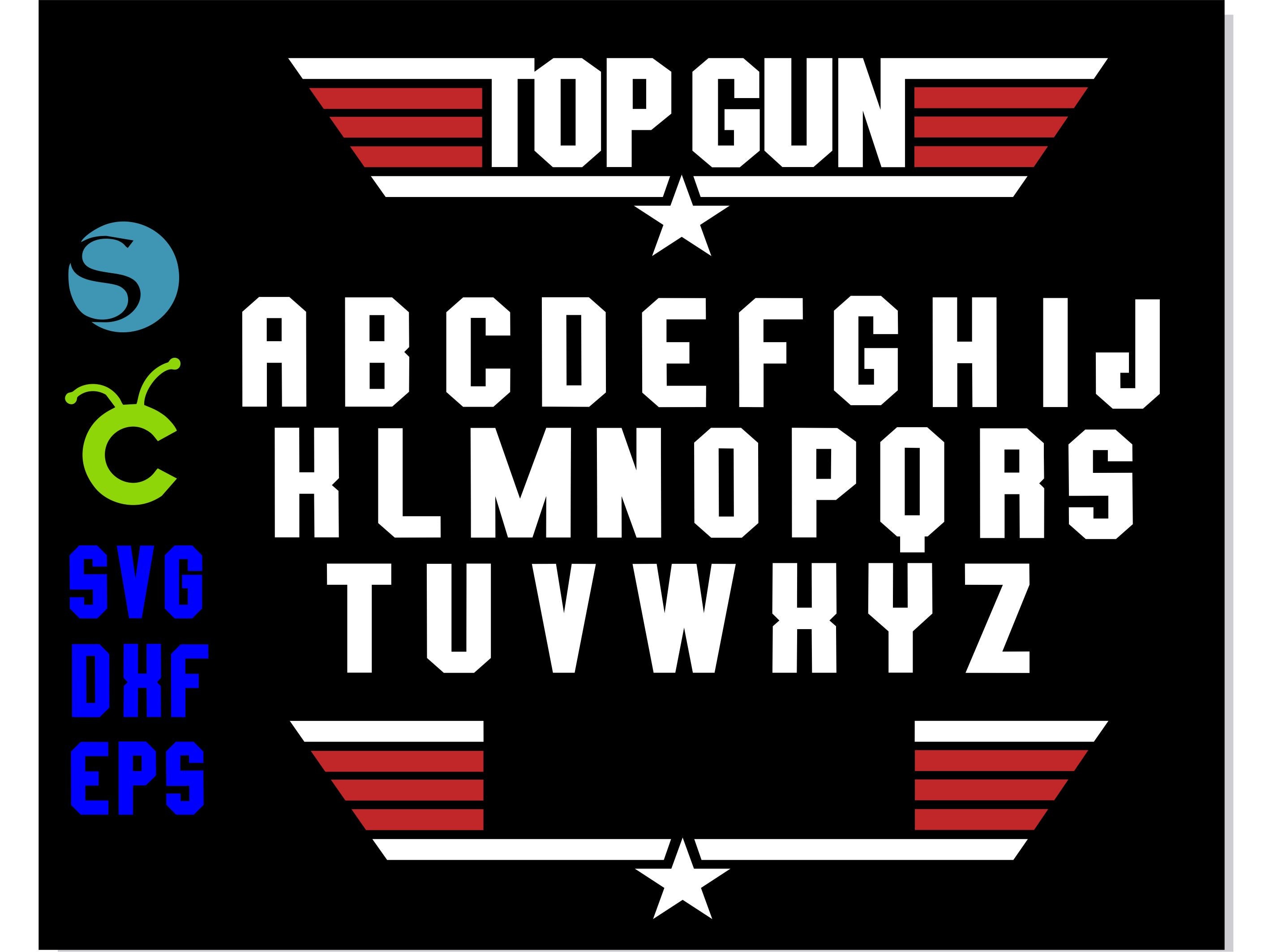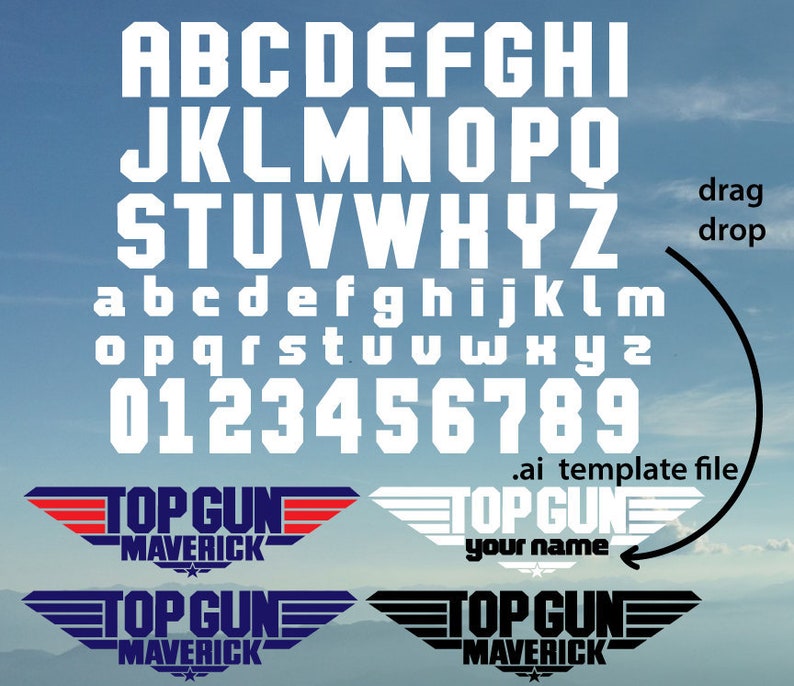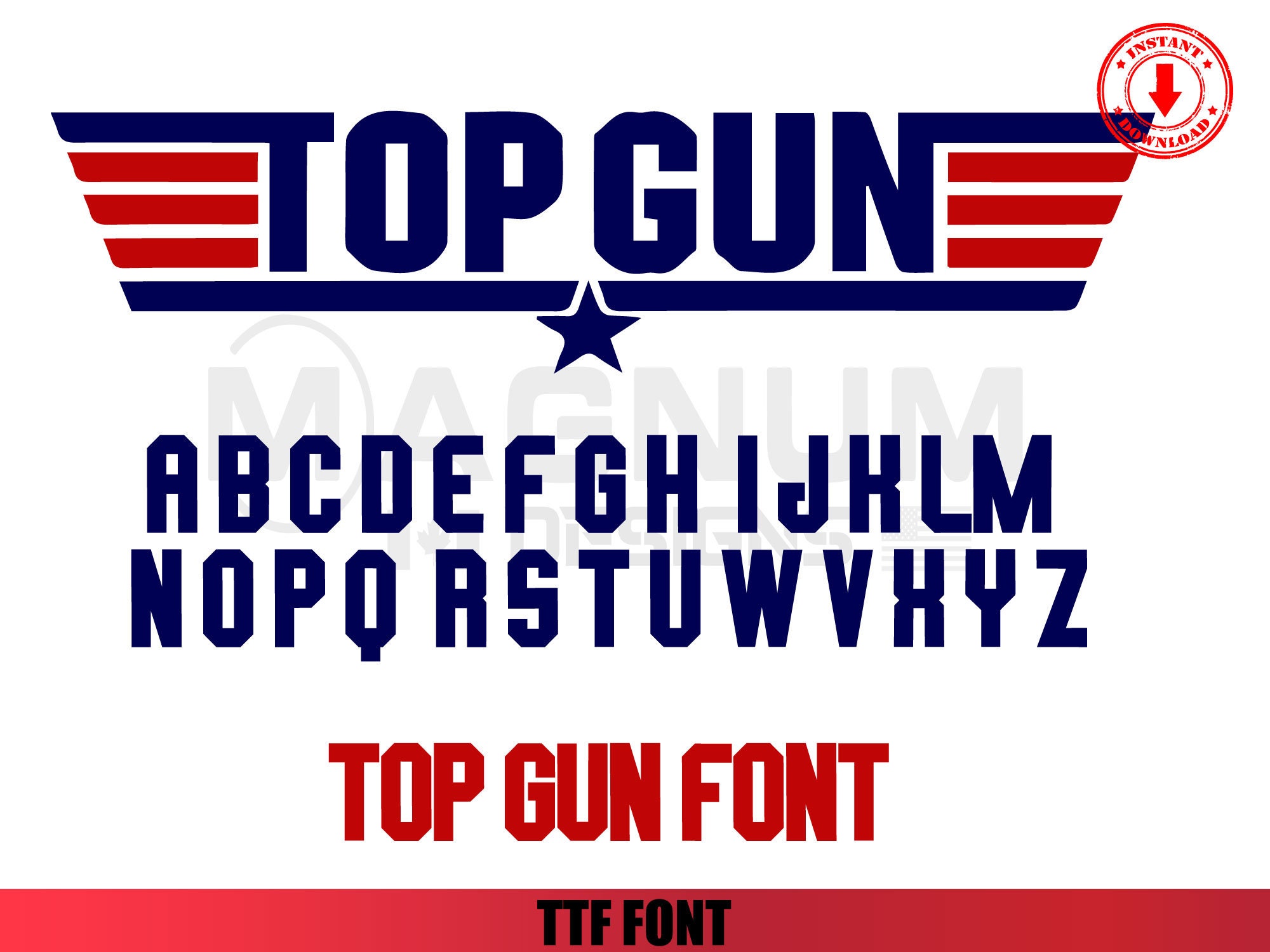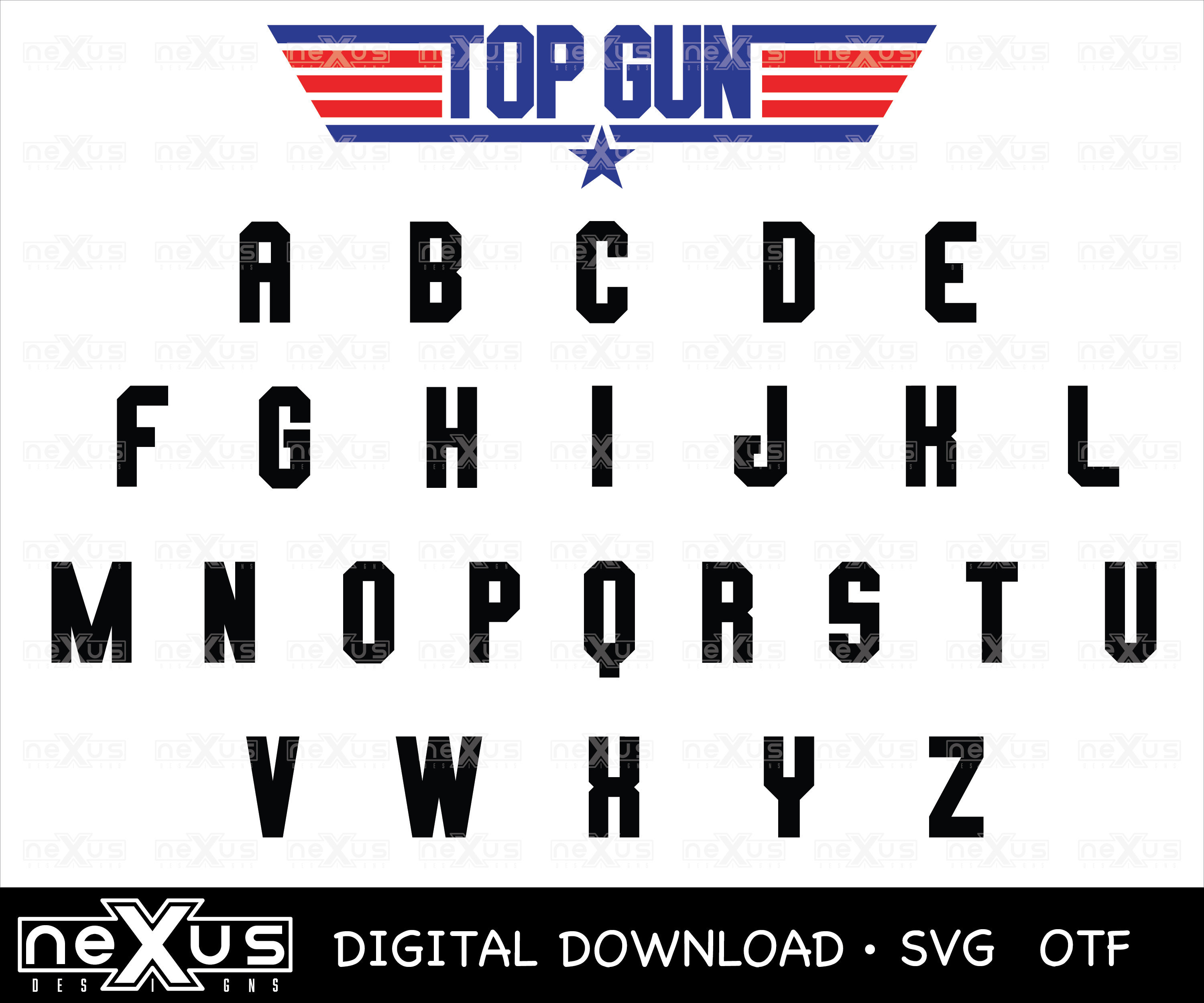
Top Gun Fonts
Top Gun Fonts - Web download the top gun font by alphabet & type. Web download the free font replicating the title logo from the movie top gun and many more at the original famous fonts! The top gun font has been downloaded 125,328 times. Directly from the best movie by tony scott, with tom cruise, the original font for all lovers. Web top gun font:
Web download the free font replicating the title logo from the movie top gun and many more at the original famous fonts! Web top gun font: The top gun font has been downloaded 125,328 times. Directly from the best movie by tony scott, with tom cruise, the original font for all lovers.